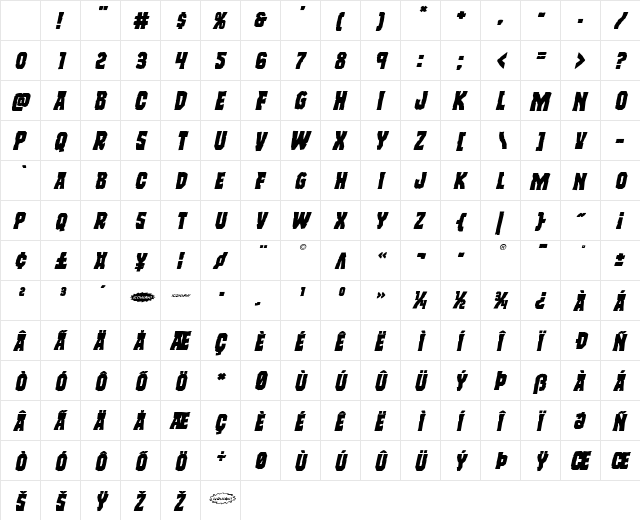
Complete Freakfinder Expanded Italic glyph index. Displaying only characters natively supported by Freakfinder Expanded Italic font.
Freakfinder Expanded Italic is a composed and adaptable typeface that performs quietly and consistently across a wide range of design contexts. The slanted form adds forward momentum and visual energy.